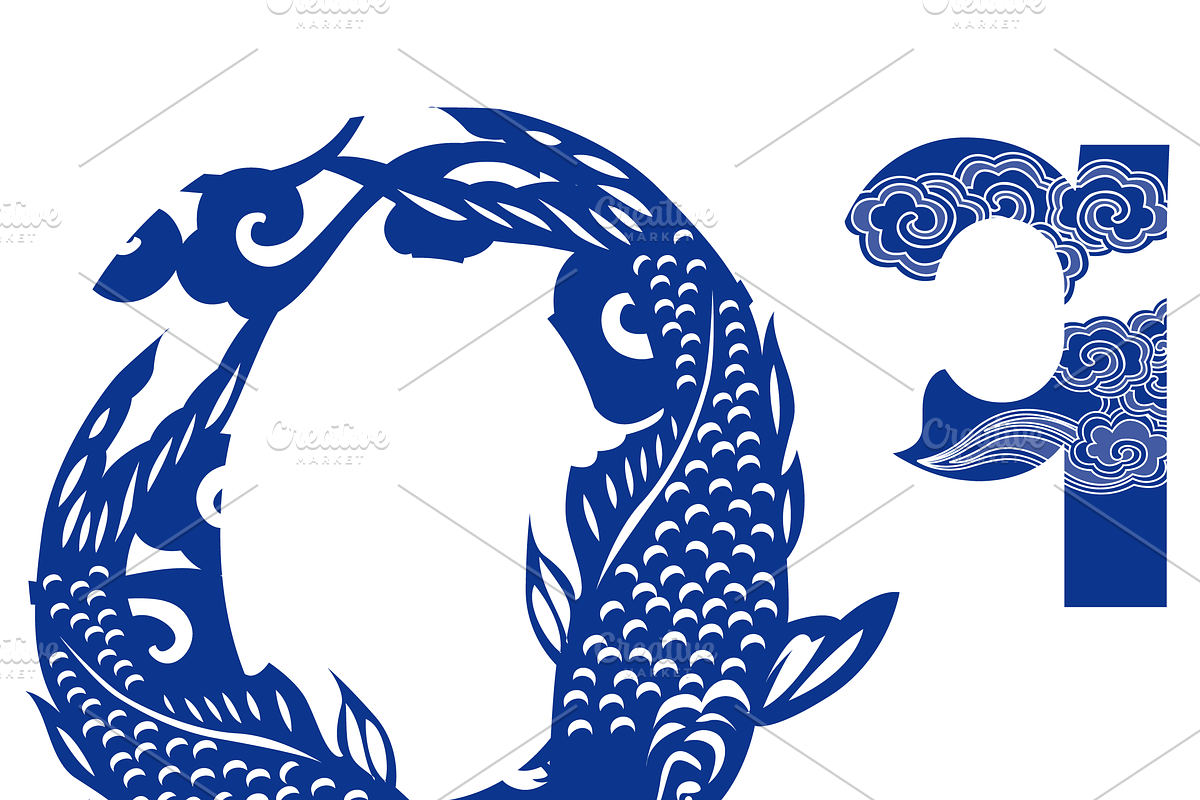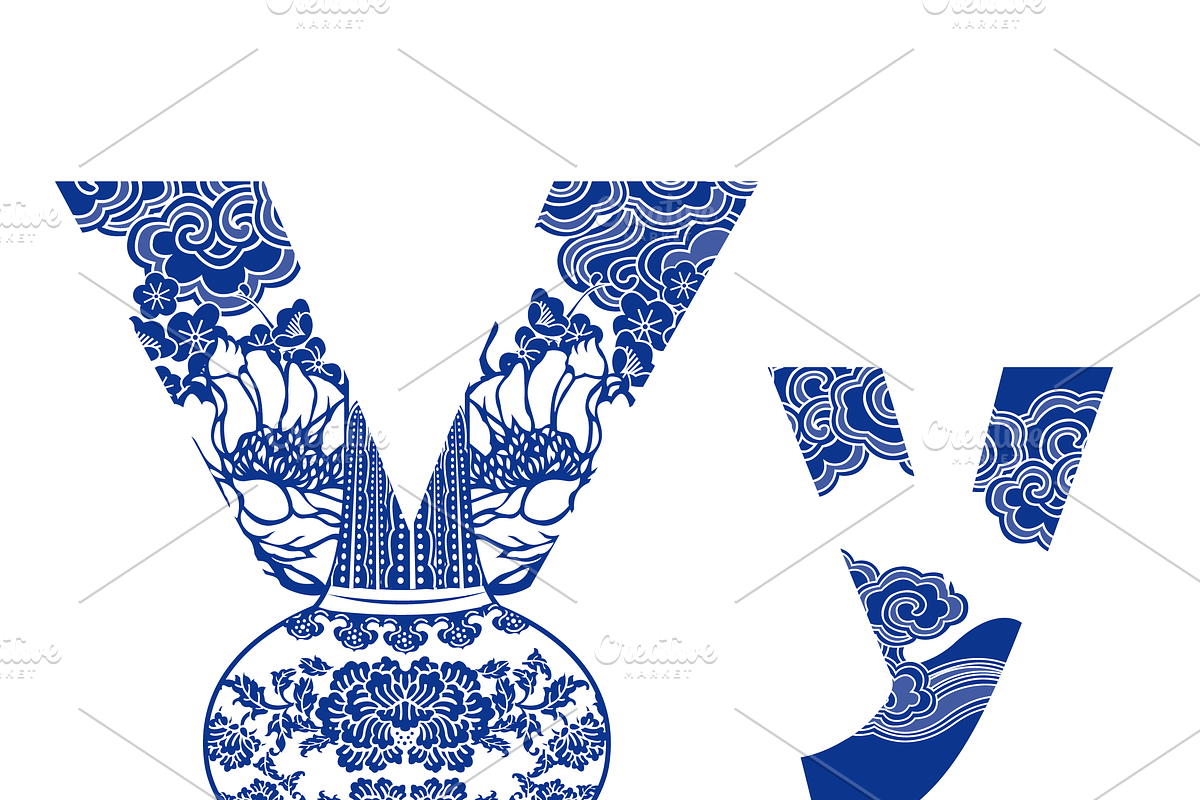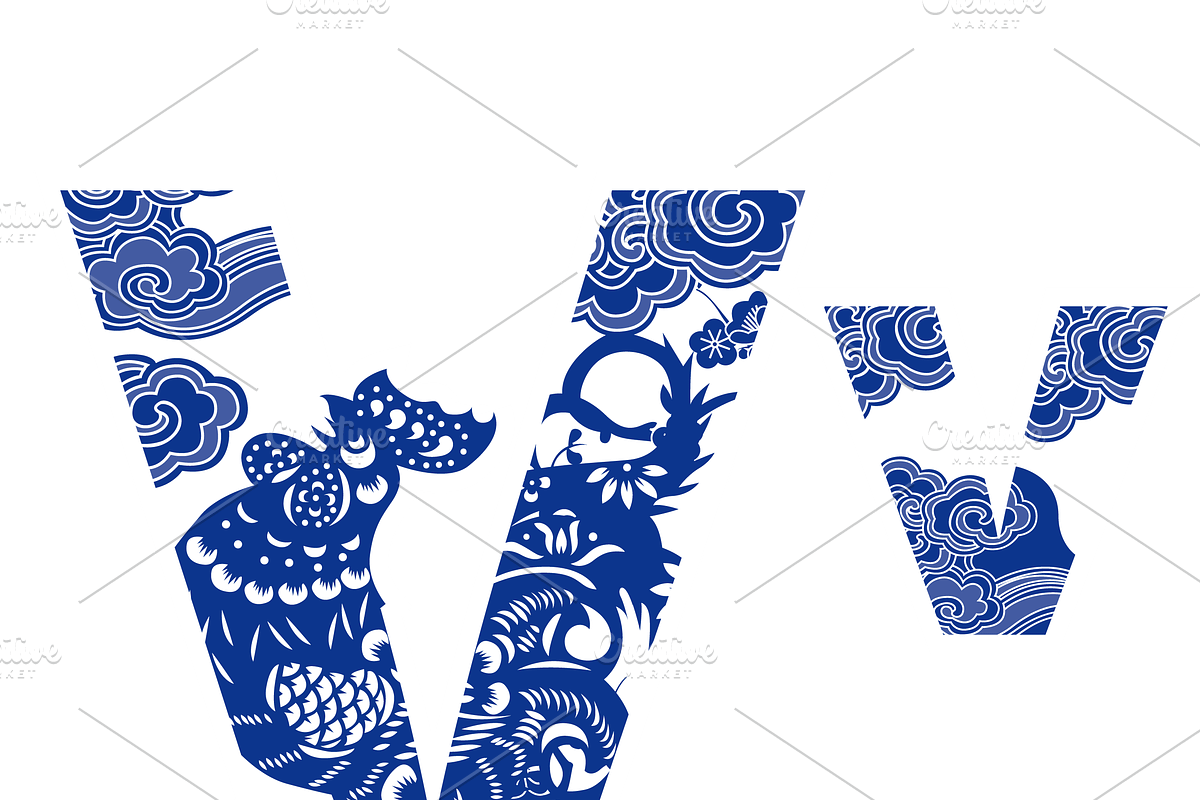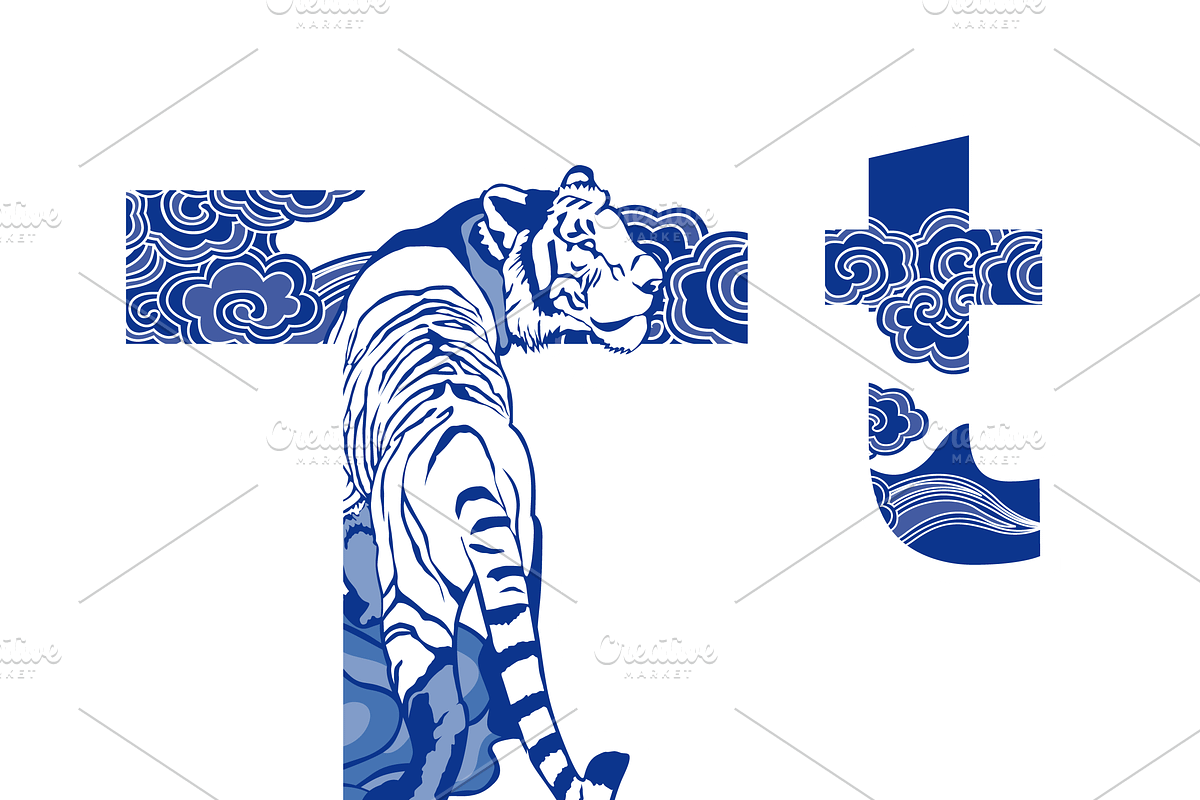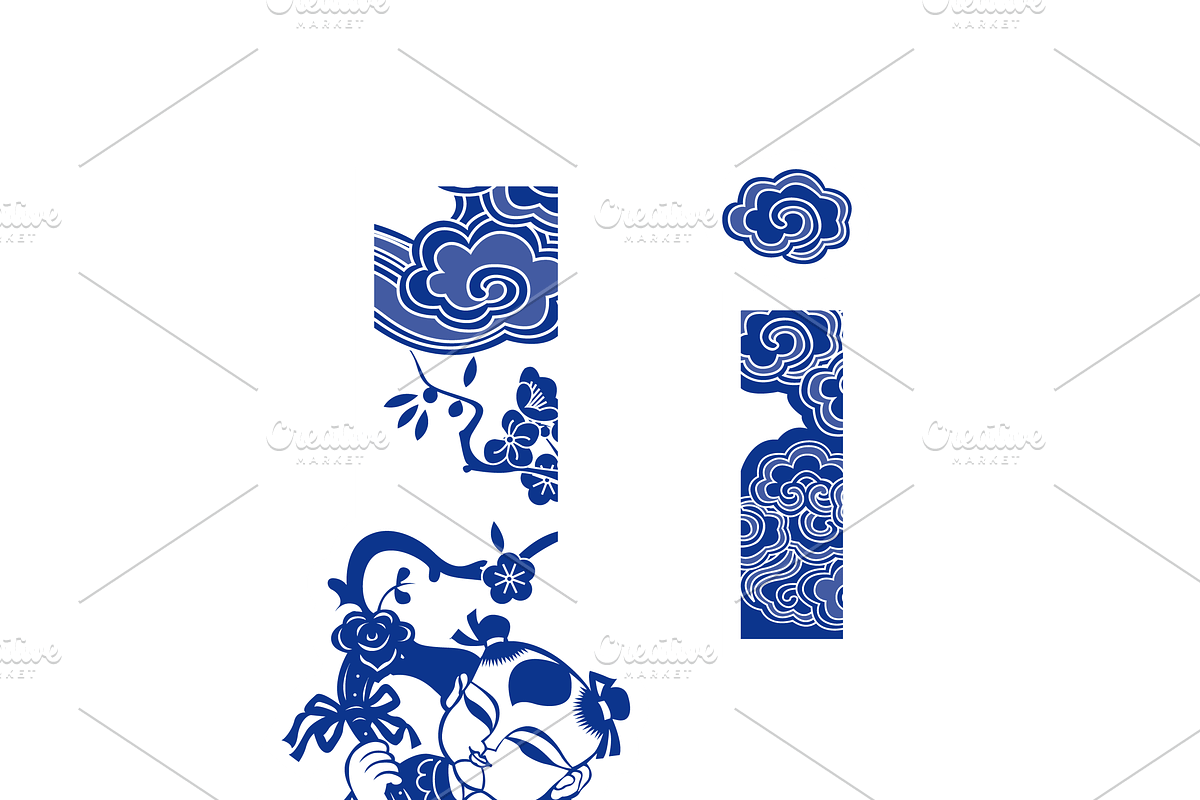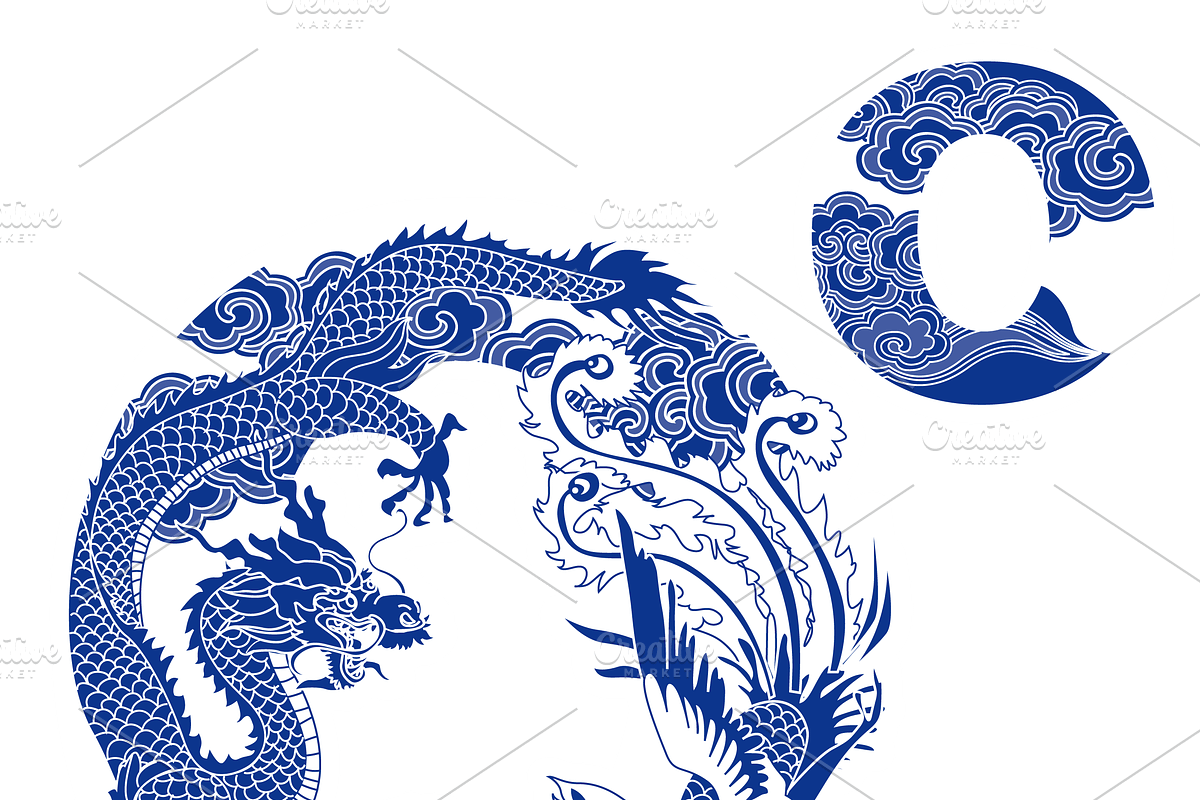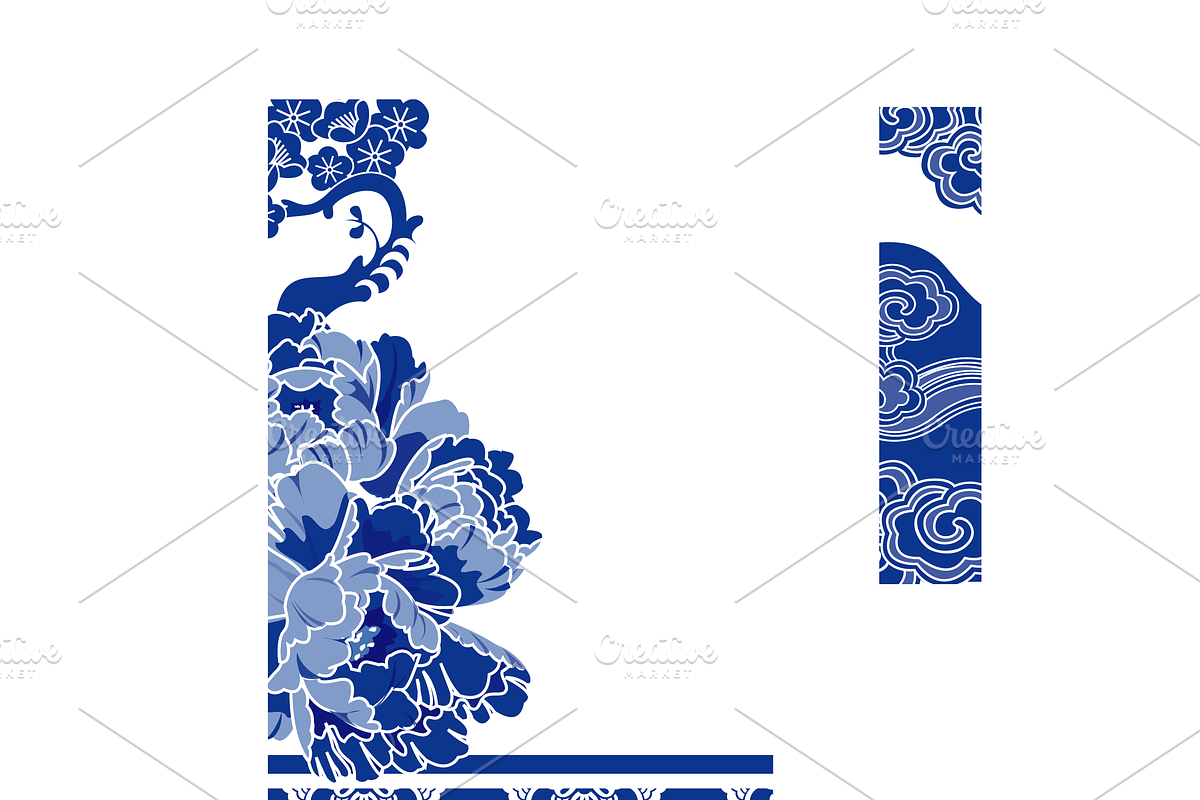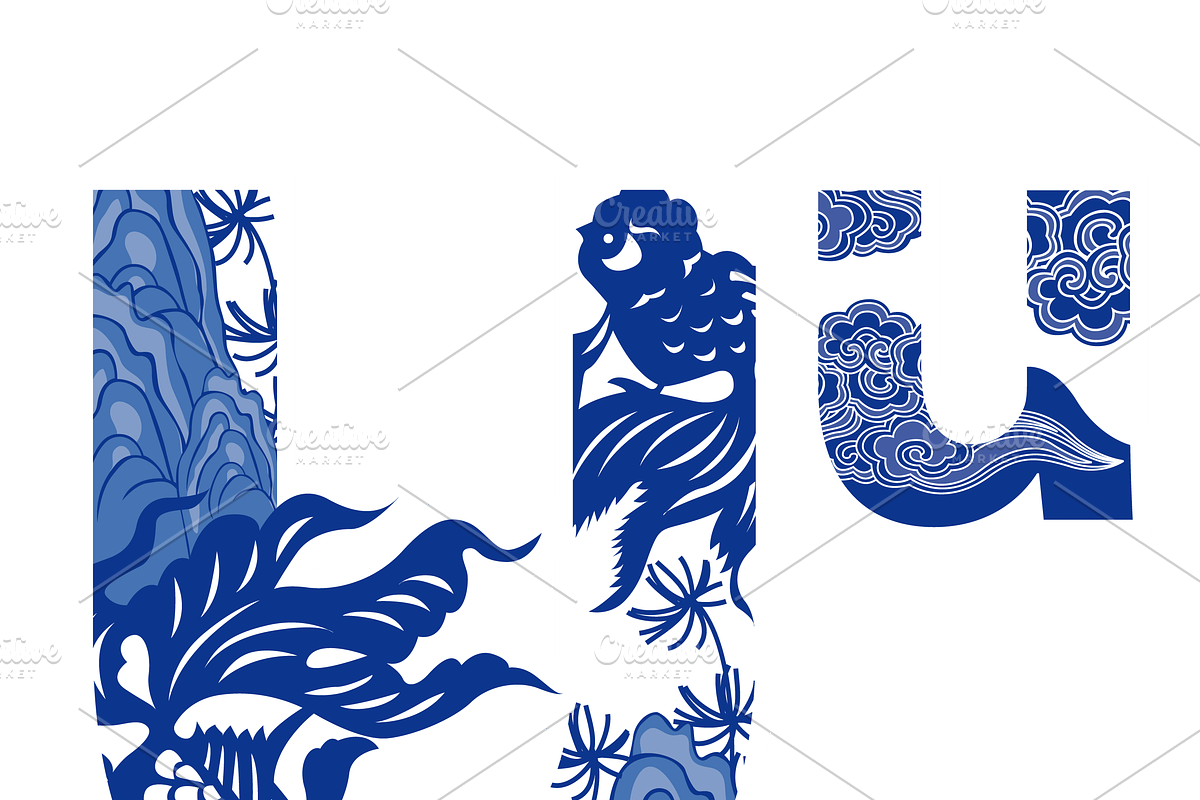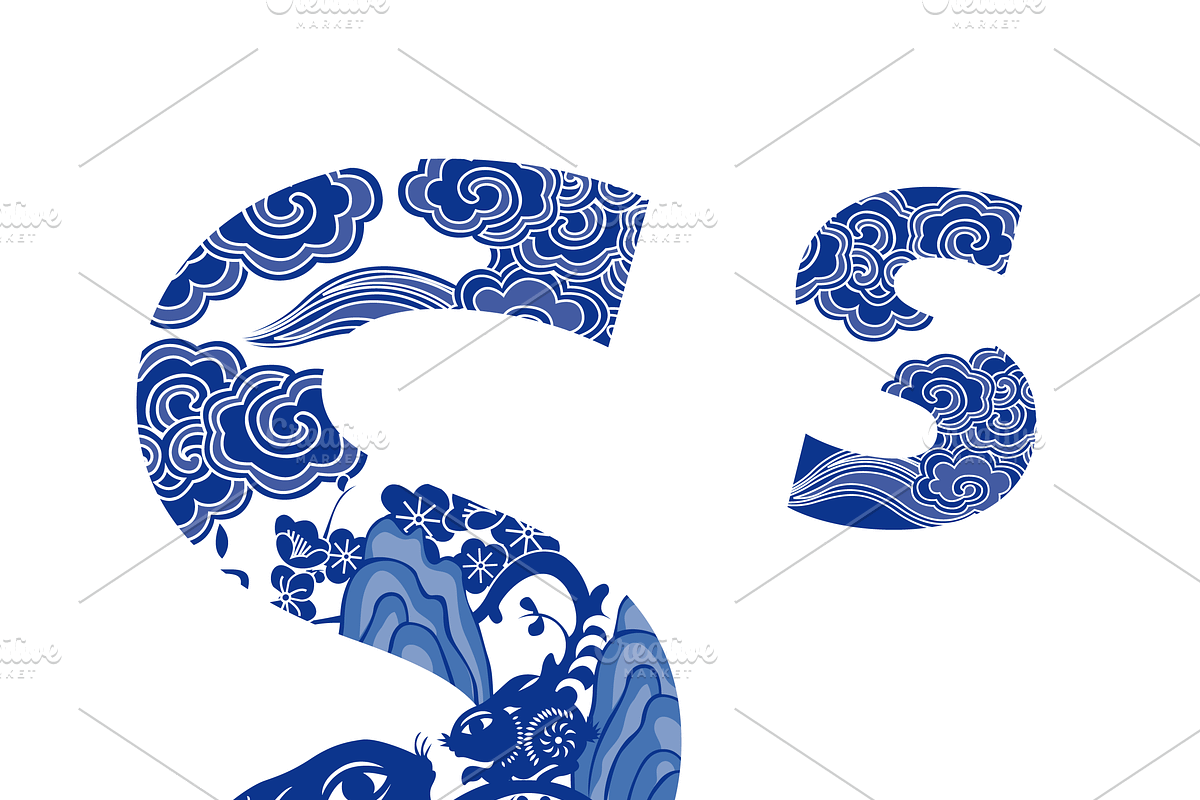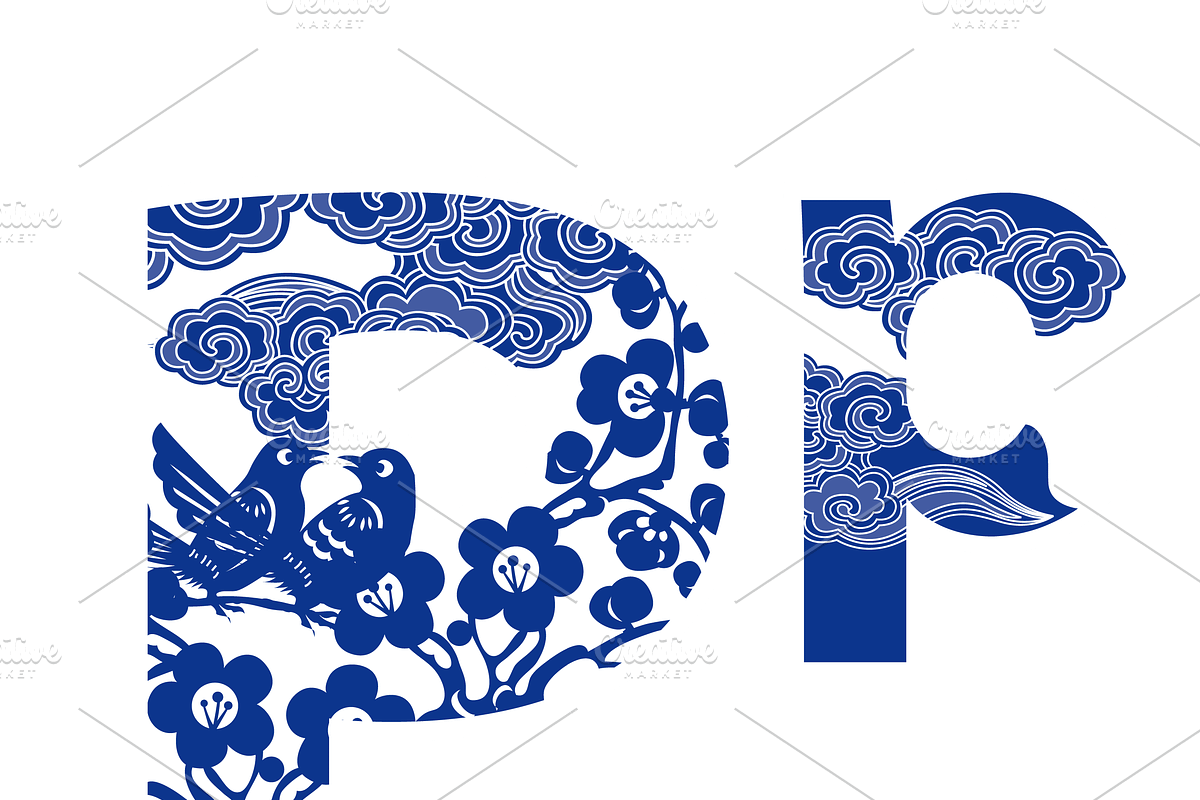
Letter A-Z Chinese style
Letter Design Set of Alphabet type A to Z in Oriental and Vintage Style Traditional Porcelain Chinese Style. (Vector)
26 Letter design in this collection